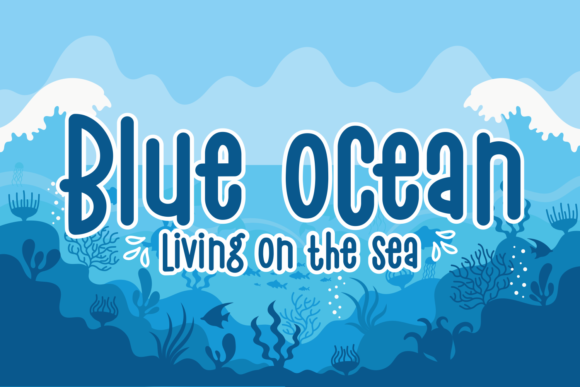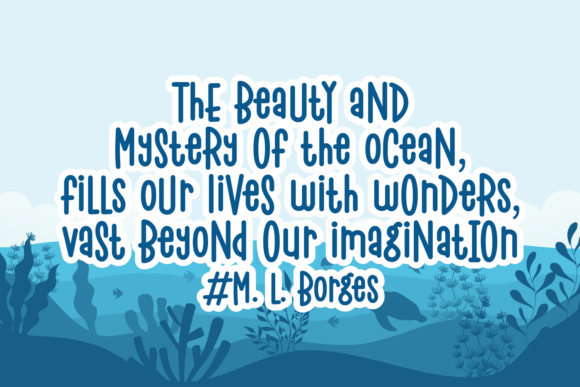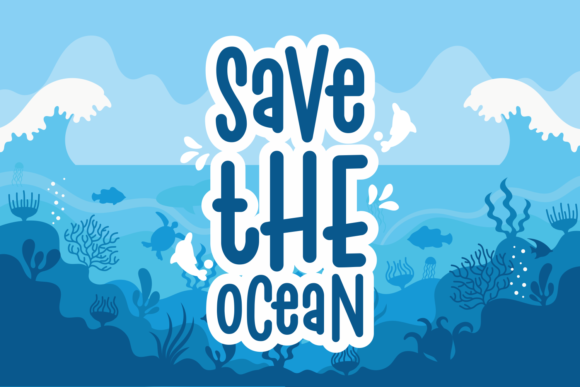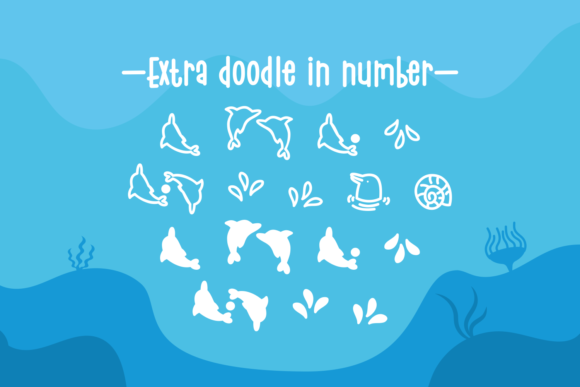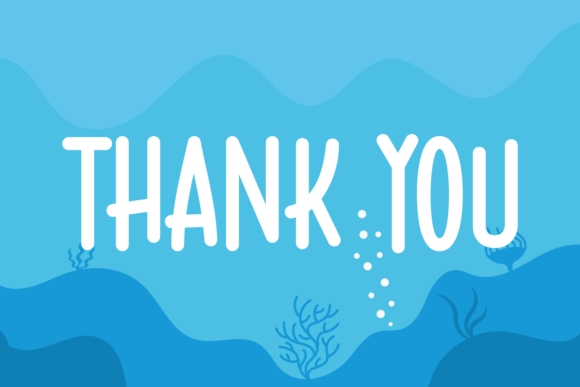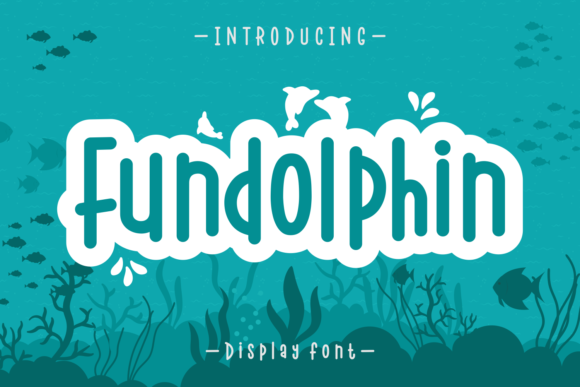
Introducing Fundolphin Font: The Whimsical and Fresh Display Font You Need
Are you tired of using the same old fonts for your design projects? Look no further! Fundolphin Font is here to revolutionize your typography with its unique blend of whimsy and freshness. This display font is designed to help you create something truly spectacular, and we’re excited to dive into its features and benefits.
A Balanced and Varied Font
Fundolphin Font strikes the perfect balance between thickness and thinness, making it a versatile choice for a wide range of design applications. Not too thick and not too thin, this font is carefully crafted to provide a unique visual appeal that’s both elegant and playful. Whether you’re designing a logo, a banner, or a social media graphic, Fundolphin Font is sure to make your project stand out.
Key Features of Fundolphin Font
- Whimsical and Fresh Design: Fundolphin Font boasts a unique and refreshing design that’s perfect for creative projects.
- Balanced and Varied: The font’s balanced thickness and varied letterforms ensure that your text is always legible and visually appealing.
- Display Font: Fundolphin Font is specifically designed as a display font, making it ideal for headlines, titles, and short text passages.
- Easy to Read: Despite its whimsical design, Fundolphin Font remains easy to read, even at smaller sizes.
Fundolphin Font is a dream come true for designers and crafters looking to add a touch of personality to their projects. Whether you’re creating:
- Digital and print invitations
- Signs and banners
- Craft projects and DIY tutorials
Fundolphin Font is the perfect choice to add a dash of whimsy and creativity to your work.
Tips for Using Fundolphin Font
To get the most out of Fundolphin Font, here are some expert tips:
- Pair with a simple font: Combine Fundolphin Font with a clean, simple font to create visual interest and hierarchy.
- Experiment with colors: Fundolphin Font looks great in bold, bright colors, so don’t be afraid to get creative!
- Use for headlines and titles: Fundolphin Font is designed for display purposes, so use it to create eye-catching headlines and titles.
In conclusion, Fundolphin Font is a game-changing display font that’s sure to elevate your design projects to the next level. With its whimsical and fresh design, balanced and varied letterforms, and ease of use, this font is a must-have for designers and crafters alike. So why wait? Give Fundolphin Font a try today and discover a world of creative possibilities!